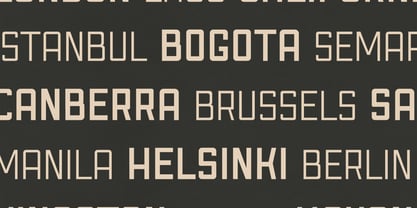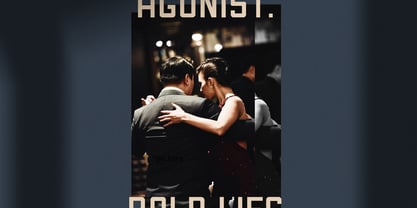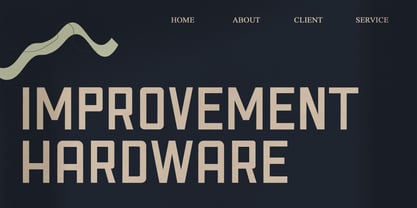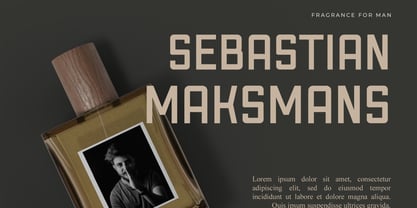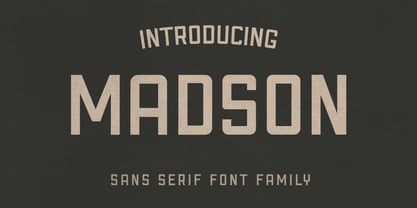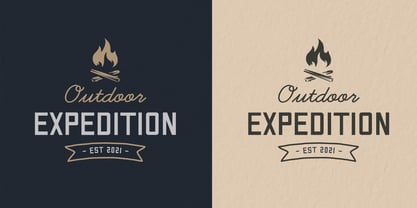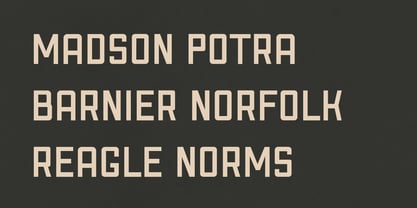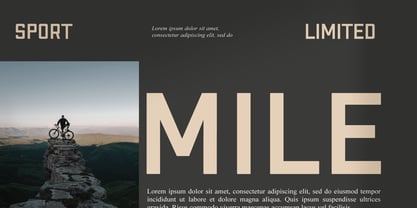
CCS Madson
by Creative Corner Studio
The CCS Madson Font Family was designed by Kurt Harahap and published by Creative Corner Studio. CCS Madson contains 3 styles and family package options. More about this family
Madson is a bold, modern geometric sans-serif typeface designed to deliver a powerful, masculine, and sophisticated presence to your brand.
Crafted with clean structural lines, strong proportions, and a selection of unique stylistic alternates and ligatures, Madson balances industrial strength with modern aesthetic elegance. Whether you are creating a logo for a high-end menswear line, designing craft beverage packaging, or styling bold editorial headlines, this all-caps display font brings an instant feel of confidence and premium quality.